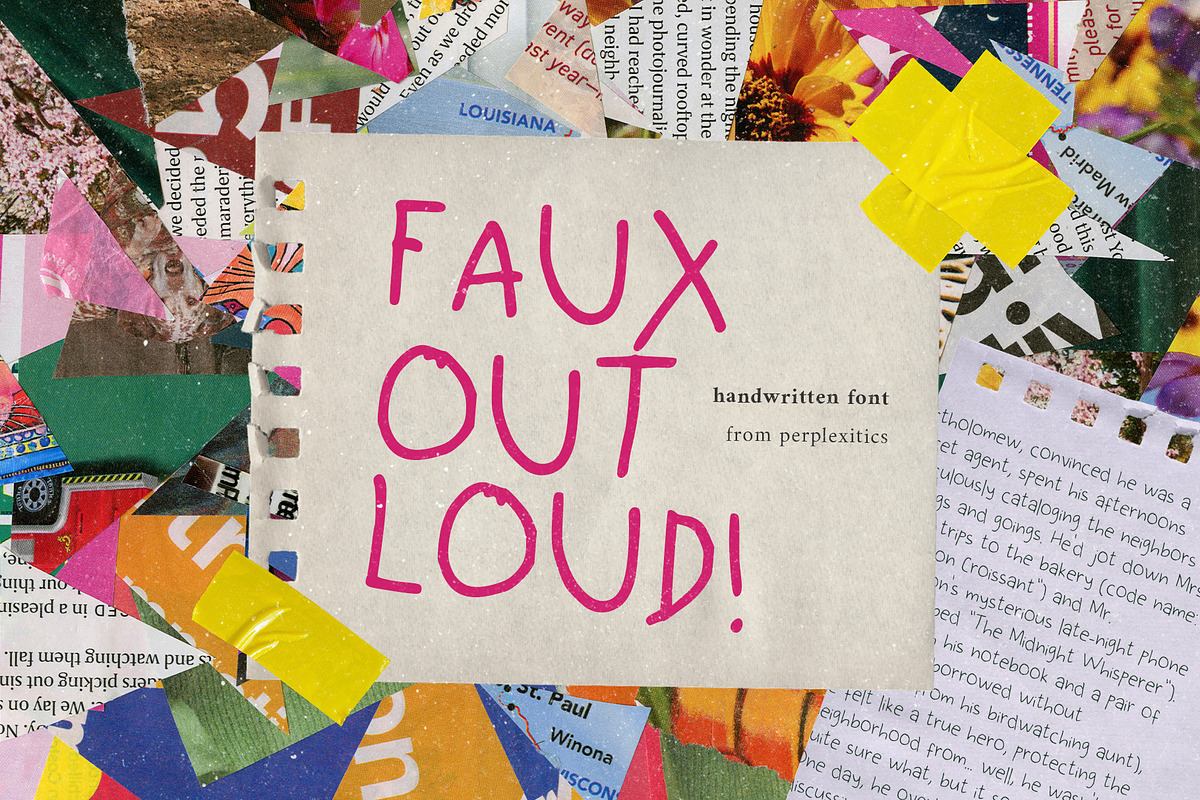
Faux Out Loud Playful Handwritten Free Download
Faux Out Loud – Playful Handwritten Font Free Download is a fun, quirky typeface full of personality and charm—perfect for designs that don’t take themselves too seriously. Please note, you are required to purchase this font for commercial use. It is available for free download for testing and personal projects only.
With its bouncy baseline, uneven strokes, and casual hand-drawn style, Faux Out Loud is ideal for greeting cards, children’s books, social media graphics, stickers, crafts, and creative branding. It brings a joyful, human touch to your typography while staying legible and engaging.